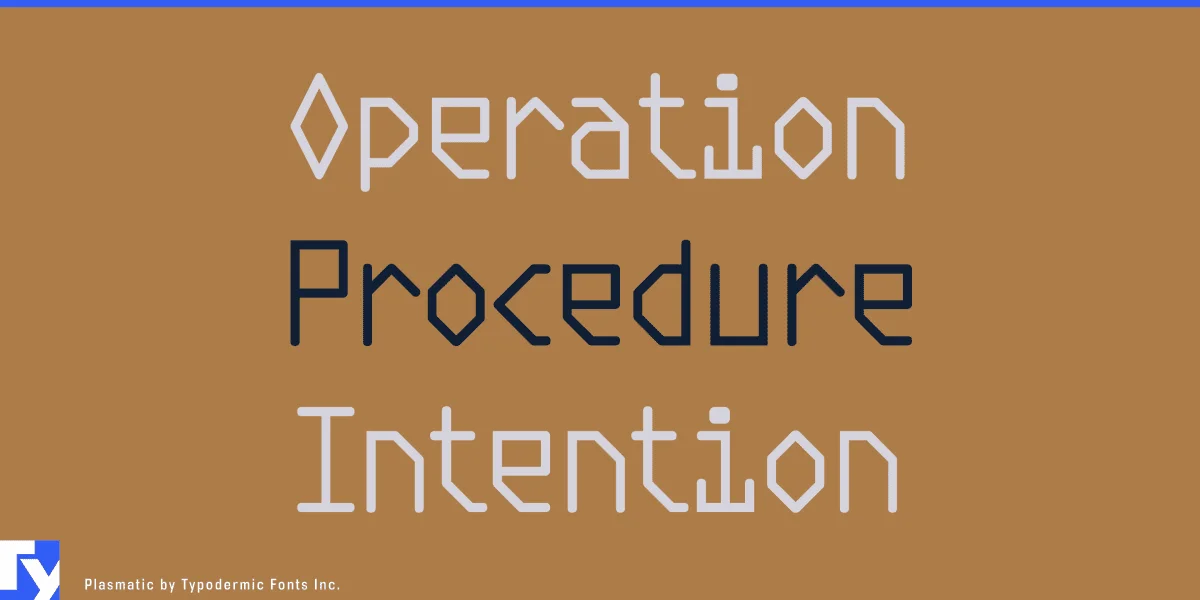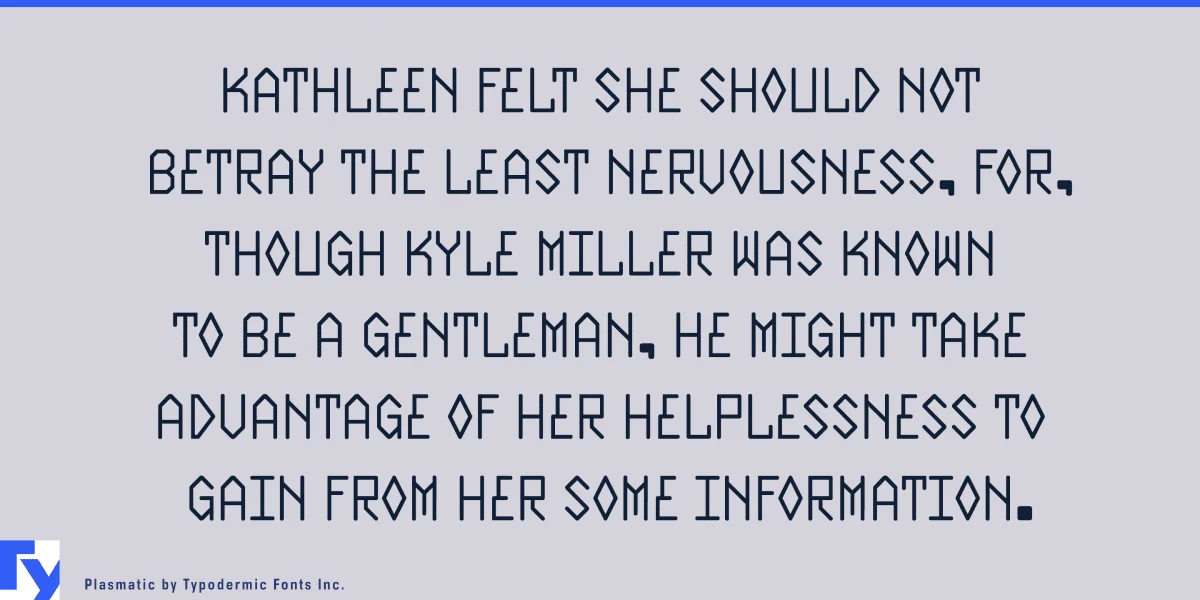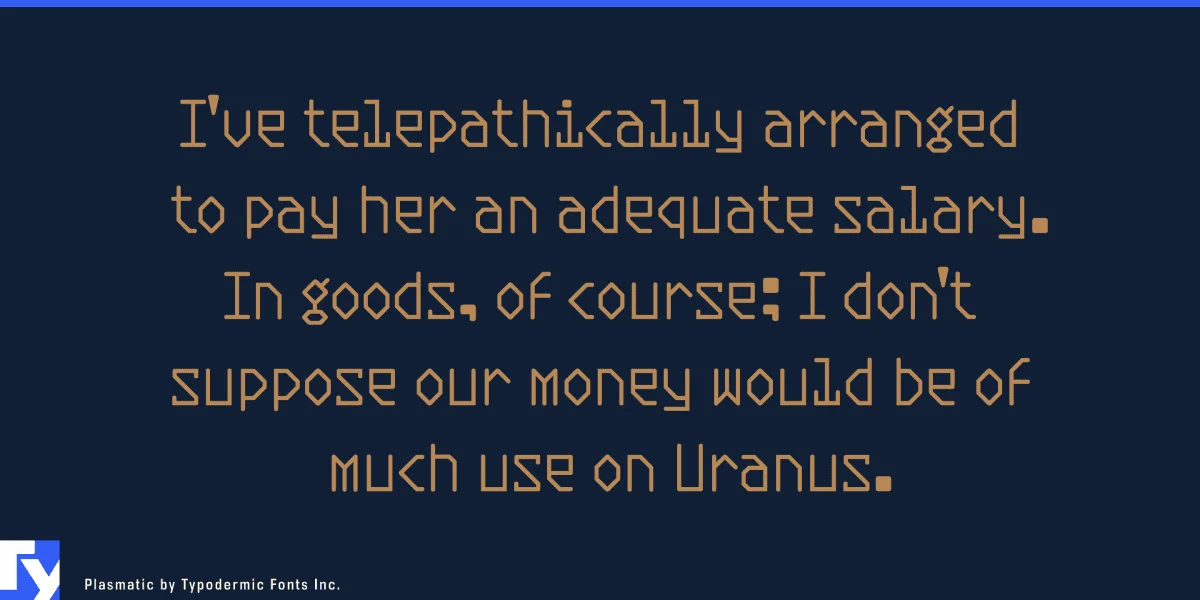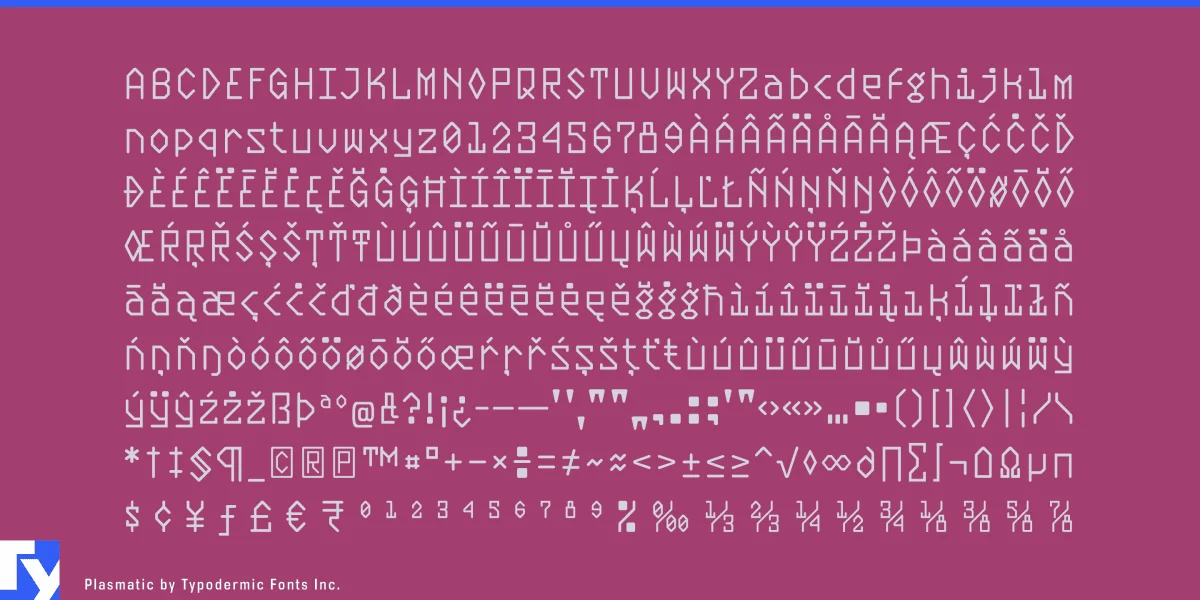
Plasmatic is a high-tech extrapolation of 1960s optical character recognition fonts. Use this typeface to add an unexpected electronic tone to your design. Most Latin-based European writing systems are supported, including the following languages. Afaan Oromo, Afar, Afrikaans, Albanian, Alsatian, Aromanian, Aymara, Bashkir (Latin), Basque, Belarusian (Latin), Bemba, Bikol, Bosnian, Breton, Cape Verdean, Creole, Catalan, Cebuano, Chamorro, Chavacano, Chichewa, Crimean Tatar (Latin), Croatian, Czech, Danish, Dawan, Dholuo, Dutch, English, Estonian, Faroese, Fijian, Filipino, Finnish, French, Frisian, Friulian, Gagauz (Latin), Galician, Ganda, Genoese, German, Greenlandic, Guadeloupean Creole, Haitian Creole, Hawaiian, Hiligaynon, Hungarian, Icelandic, Ilocano, Indonesian, Irish, Italian, Jamaican, Kaqchikel, Karakalpak (Latin), Kashubian, Kikongo, Kinyarwanda, Kirundi, Kurdish (Latin), Latvian, Lithuanian, Lombard, Low Saxon, Luxembourgish, Maasai, Makhuwa, Malay, Maltese, Māori, Moldovan, Montenegrin, Ndebele, Neapolitan, Norwegian, Novial, Occitan, Ossetian (Latin), Papiamento, Piedmontese, Polish, Portuguese, Quechua, Rarotongan, Romanian, Romansh, Sami, Sango, Saramaccan, Sardinian, Scottish Gaelic, Serbian (Latin), Shona, Sicilian, Silesian, Slovak, Slovenian, Somali, Sorbian, Sotho, Spanish, Swahili, Swazi, Swedish, Tagalog, Tahitian, Tetum, Tongan, Tshiluba, Tsonga, Tswana, Tumbuka, Turkish, Turkmen (Latin), Tuvaluan, Uzbek (Latin), Venetian, Vepsian, Võro, Walloon, Waray-Waray, Wayuu, Welsh, Wolof, Xhosa, Yapese, Zapotec Zulu and Zuni.